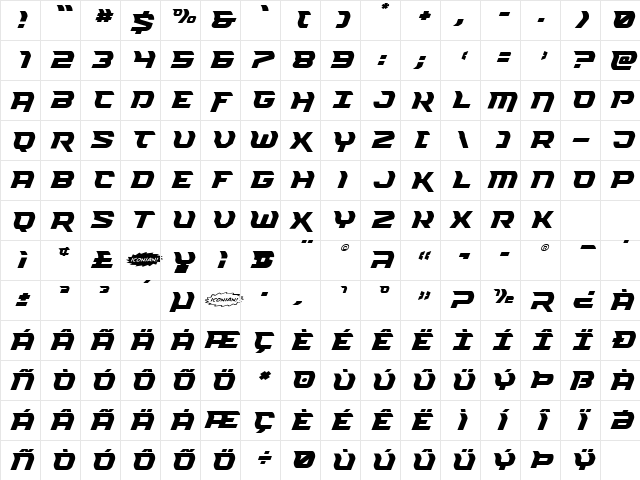
Renegent Expanded Regular
Design Context for Renegent Expanded
Renegent Expanded is a composed and adaptable typeface that performs quietly and consistently across a wide range of design contexts.
Pro Tip: Use Renegent Expanded in both headline and body roles to test its range before committing to a single application.